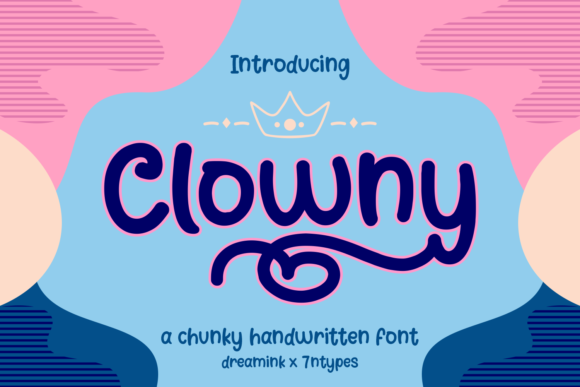
Journey into the world of Clowny Font, a script font family that emanates charm and elegance. Crafted by the ingenious Dreamink (7ntypes), this stunning handwritten font pays homage to the timeless art of calligraphy.
Clowny Font is not merely a font; it's an artistic expression that transforms your designs into masterpieces. Whether you're a graphic designer, a crafter, or a creative entrepreneur, Clowny Font is your passport to a world of endless possibilities.
Be it branding projects, eye-catching headings, enchanting wedding designs, heartfelt invitations, personal signatures, distinctive logos, or captivating labels, Clowny Font gracefully elevates every project to its highest potential.
Its fluid strokes and graceful curves add a touch of sophistication and charm to any design. Experience the magic as your words and designs come alive, infused with a timeless elegance that resonates with your audience.
With Clowny Font, you're not just downloading a font; you're embracing an artistic legacy. It's a font that speaks volumes, transforming the ordinary into the extraordinary.
But don't just take our word for it. Journey through the gallery of stunning creations brought to life by Clowny Font. From logos that exude professionalism to wedding invitations that radiate romance, Clowny Font has proven its prowess in capturing hearts and imaginations.
Unlock your creativity and propel your designs to new heights with Clowny Font. Embrace the artistry, charm, and elegance that await you. Experience the Clowny Font difference today!